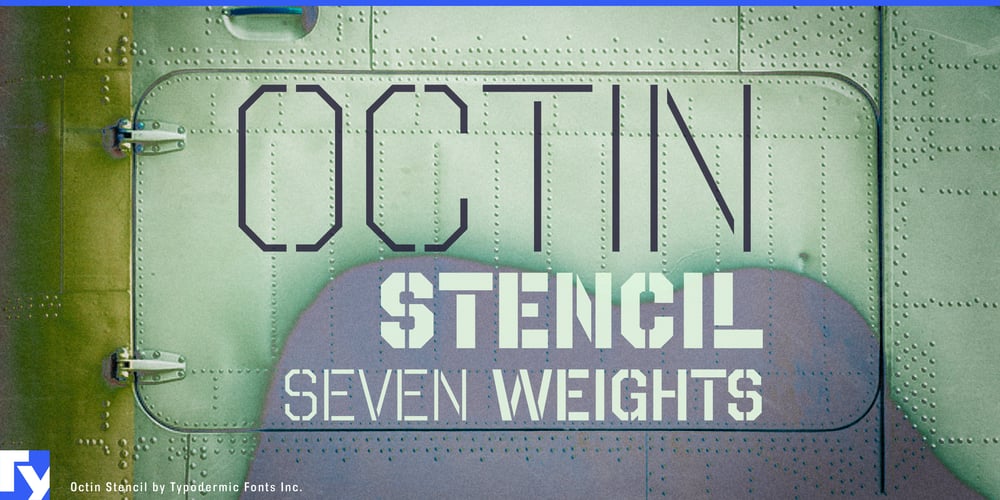
Octin Stencil Font Family was designed by Ray Larabie and published by Typodermic. Octin Stencil contains 7 styles and family package options. Step into the industrial powerhouse of typography with Octin Stencil, a typeface that doesn’t just communicate—it fabricates impact. This font family is built like a high-performance machine, engineered to withstand the toughest design challenges and deliver results with factory-precision efficiency.Octin Stencil comes fully equipped with seven weights, each one a specialized tool in your typographic assembly line. From the “light-duty” weight that handles delicate operations with finesse, to the “heavy-duty” black that pounds your message home like a hydraulic press, this font family is ready to take on any job, big or small. Don’t mistake Octin Stencil for just another cog in the machine. This versatile powerhouse is equally at home on the factory floor or in the executive boardroom. Its stenciled edges speak the language of industrial might, while its clean lines command respect in any setting. Whether you’re designing safety signage for a construction site, branding for a cutting-edge tech firm, or recruitment materials for elite forces, Octin Stencil delivers with machine-like precision.Octin Stencil is fluent in the international language of industry. Supporting most Latin-based European writing systems, it ensures your message maintains its industrial strength from the shipyards of Hamburg to the auto plants of Detroit. It’s typography built to withstand global pressures and perform under any conditions. This hardworking typeface is part of the robust Octin product line. Team up with Octin Sports for designs that are built to win, Octin College for a more scholarly approach to strength, Octin Prison for unyielding authority, Octin Vintage for time-tested toughness, and Octin Spraypaint for a grittier, street-smart edge.In a design world often cluttered with flimsy, disposable trends, Octin Stencil stands as a monument to lasting quality. It’s for brands that don’t just enter markets—they revolutionize industries. For messages that don’t just communicate—they build empires. From heavy machinery catalogs to high-tech product launches, Octin Stencil speaks with the unwavering authority of a factory foreman. Choose Octin Stencil and watch your designs roll off the production line with precision-engineered impact.